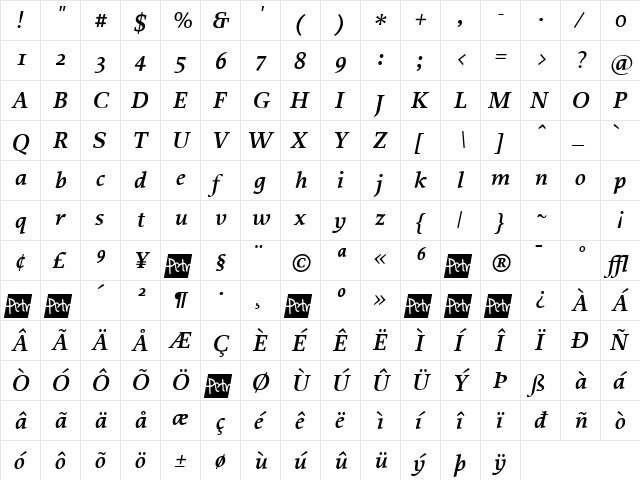
Proforma SemiBoldItalic Font Preview
Design Context for Proforma Typeface
Proforma offers clean, dependable letterforms without strong stylistic allegiance, making it a practical choice for designers who need flexibility. The dynamic lean of this cut emphasises speed and emphasis in any layout. The heavy weight commands attention and anchors typographic hierarchies.
Pro Tip: Try Proforma for annotation and caption copy alongside an upright companion — the contrast in angle creates a dynamic but ordered typographic system.